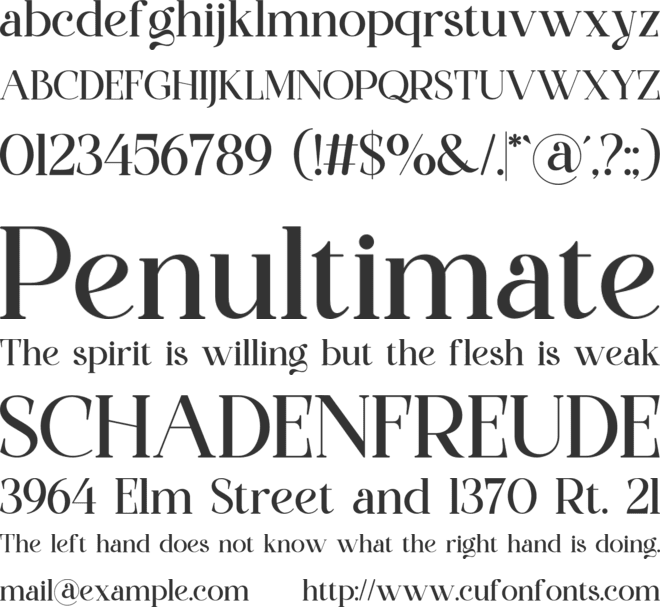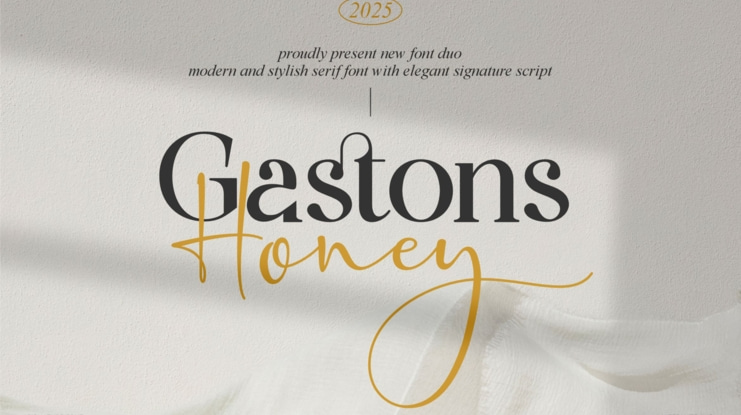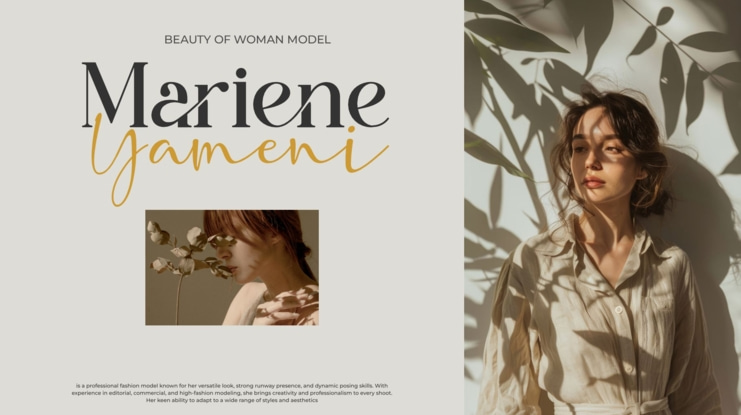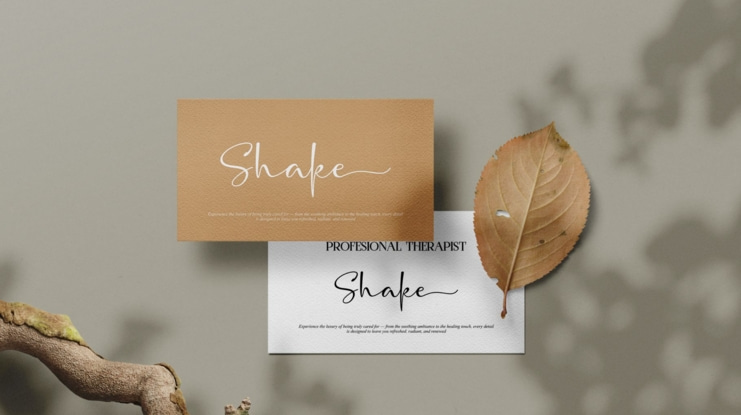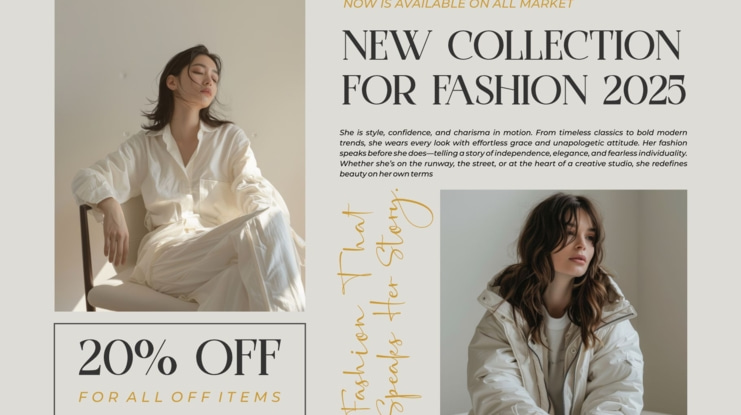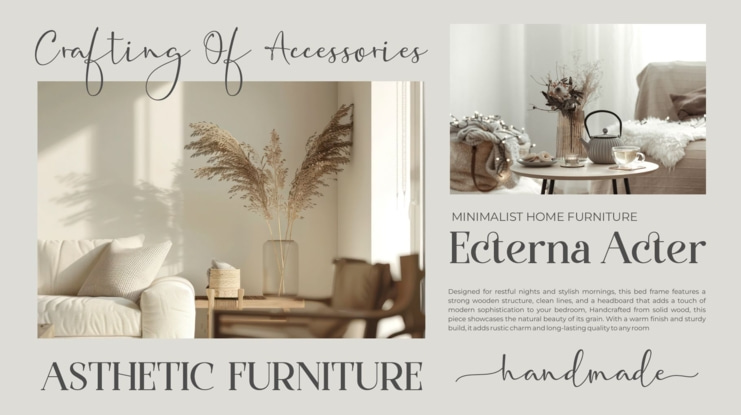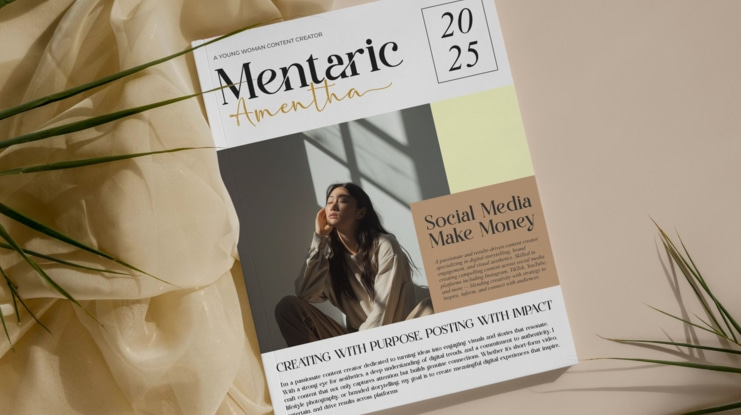
Gaston Honey Font
Introducing Gaston Honey, a new duo font that combines the elegance of a serif font with the beauty of a classy contemporary handwritten script. Best used for titles, logos, branding, magazines, product packaging, and invitations. Its stylish alternations and ligatures with clean lines and subtle curves add an extra touch of class to any project, making this font the perfect partner for any project.
FEATURE
- Ligature
- Uppercase and lowercase
- Numbering and Punctuation